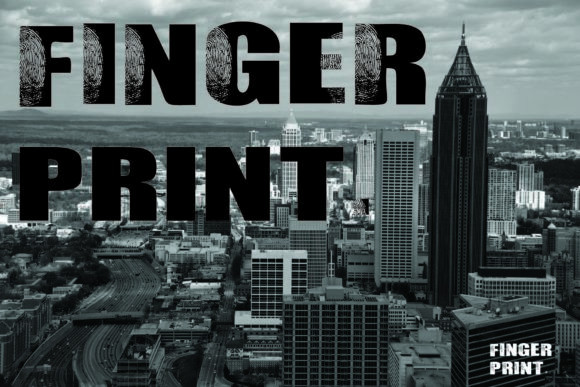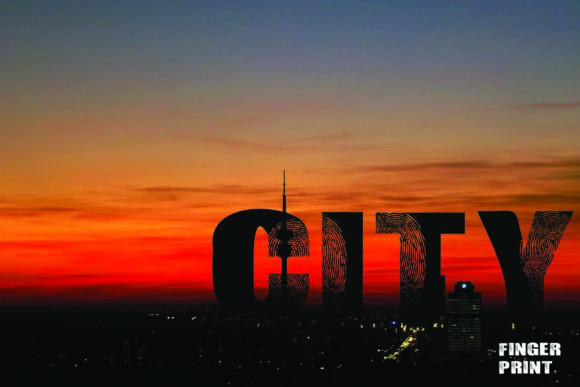
Finger Print Font
Finger Print is a bold display font, carefully handcrafted to become a true favorite. Its casual charm makes it appear wonderfully down-to-earth, readable and, ultimately, incredibly versatile. Finger Print will look outstanding in any context, whether it’s being used on busy backgrounds or as a standalone headline on a book cover.